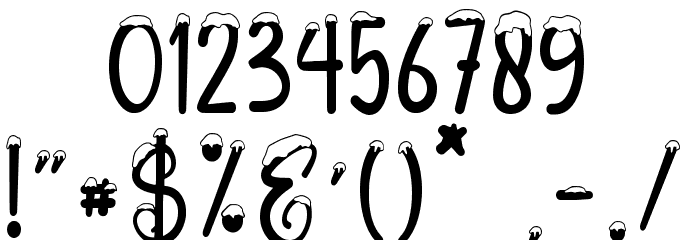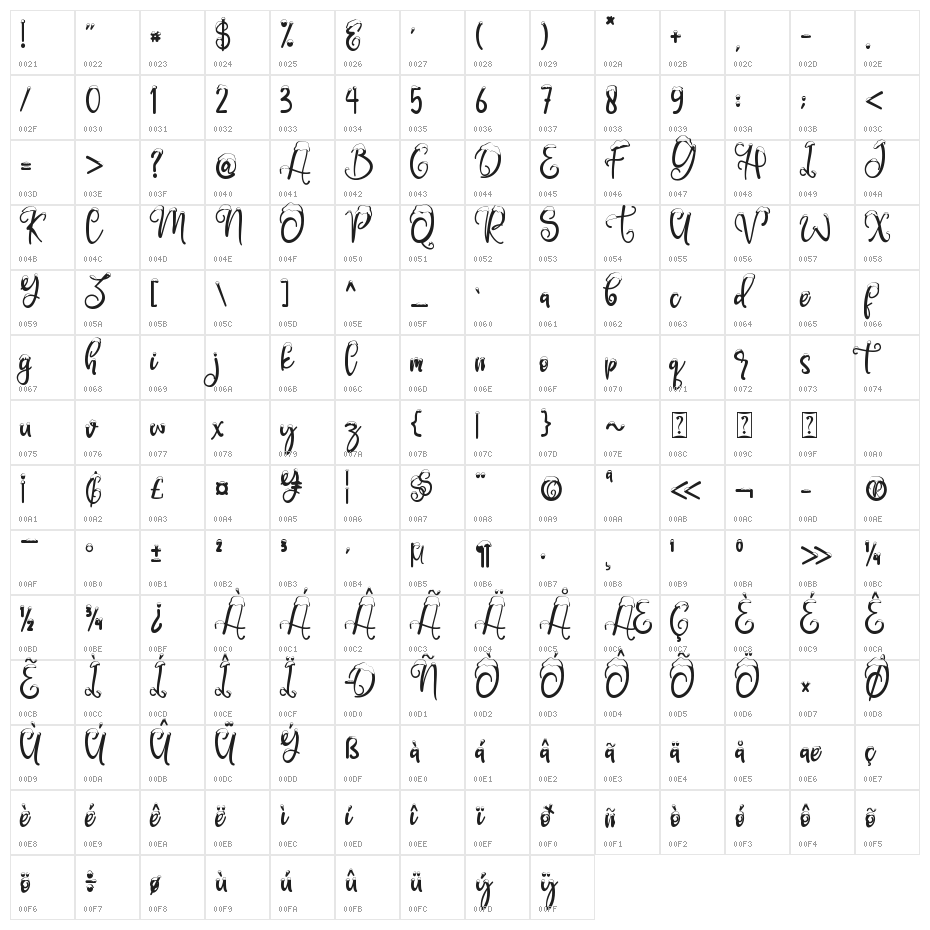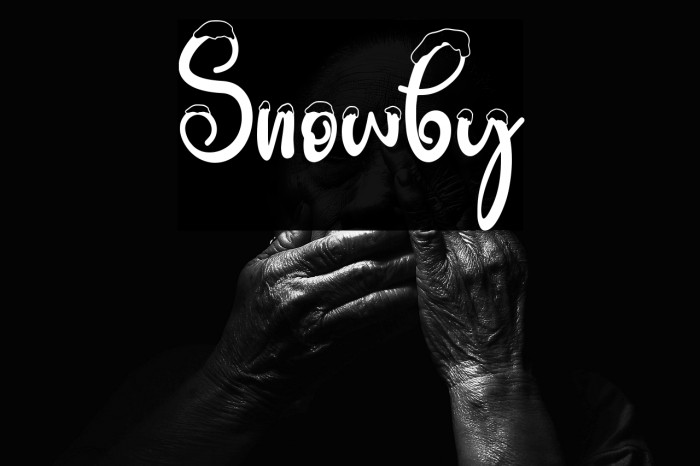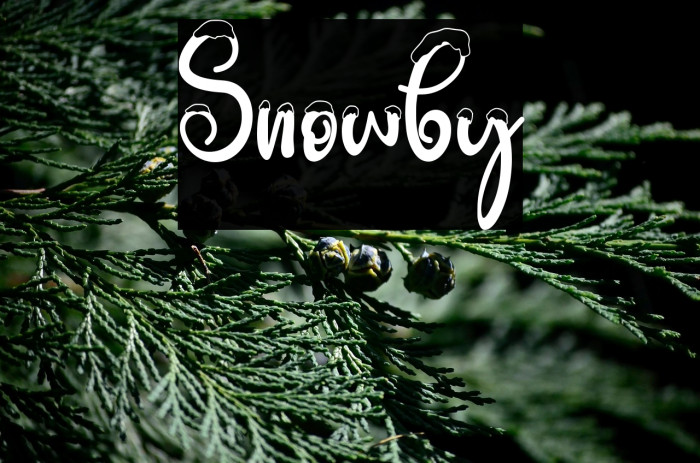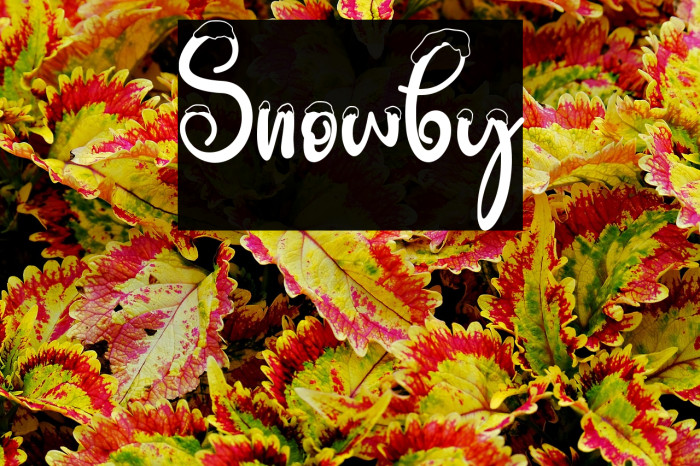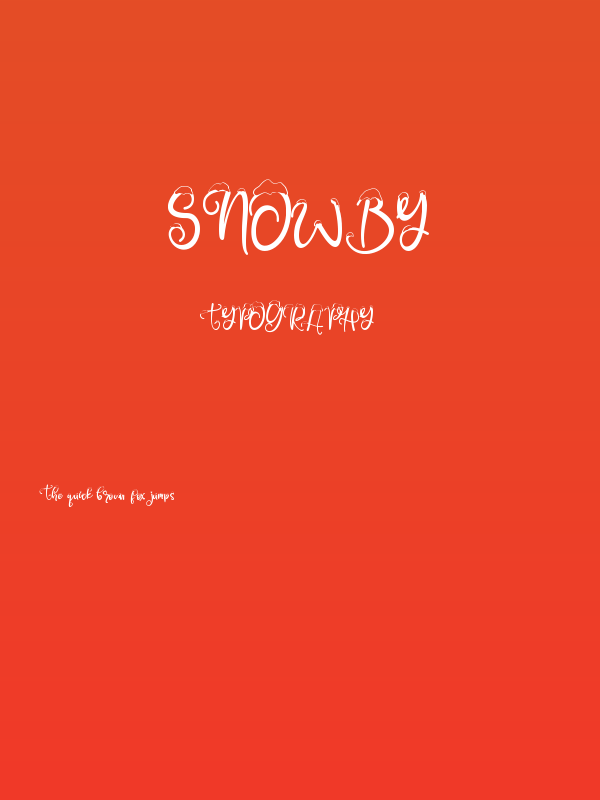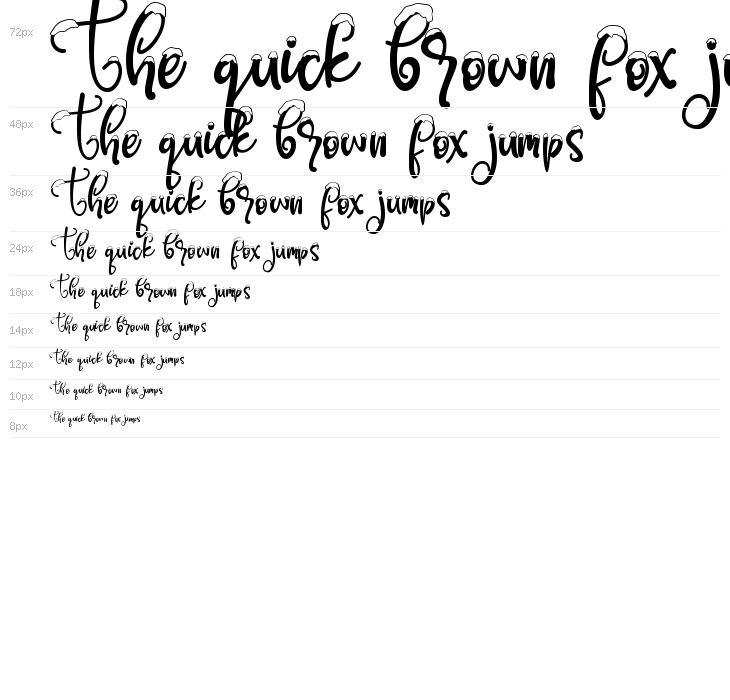
Snowby Font
Snowby Description
This whimsical and playful font features a unique design where each character is adorned with a snow-like cap, evoking a sense of winter wonderland. The letters are crafted in a script style with flowing, cursive strokes that add a touch of elegance and charm. The uppercase letters are bold and prominent, while the lowercase letters maintain a consistent flow, creating a harmonious balance. Numbers and special characters are also included, each with the same snowy embellishment, ensuring a cohesive look across all text. This font is perfect for holiday-themed projects, winter events, or any design that seeks to capture the magic of the snowy season.
| Use Case | Headlines, Logos, Decorative text |
| Proposed Projects | Ideal for holiday cards, winter event invitations, festive posters, and seasonal branding. |